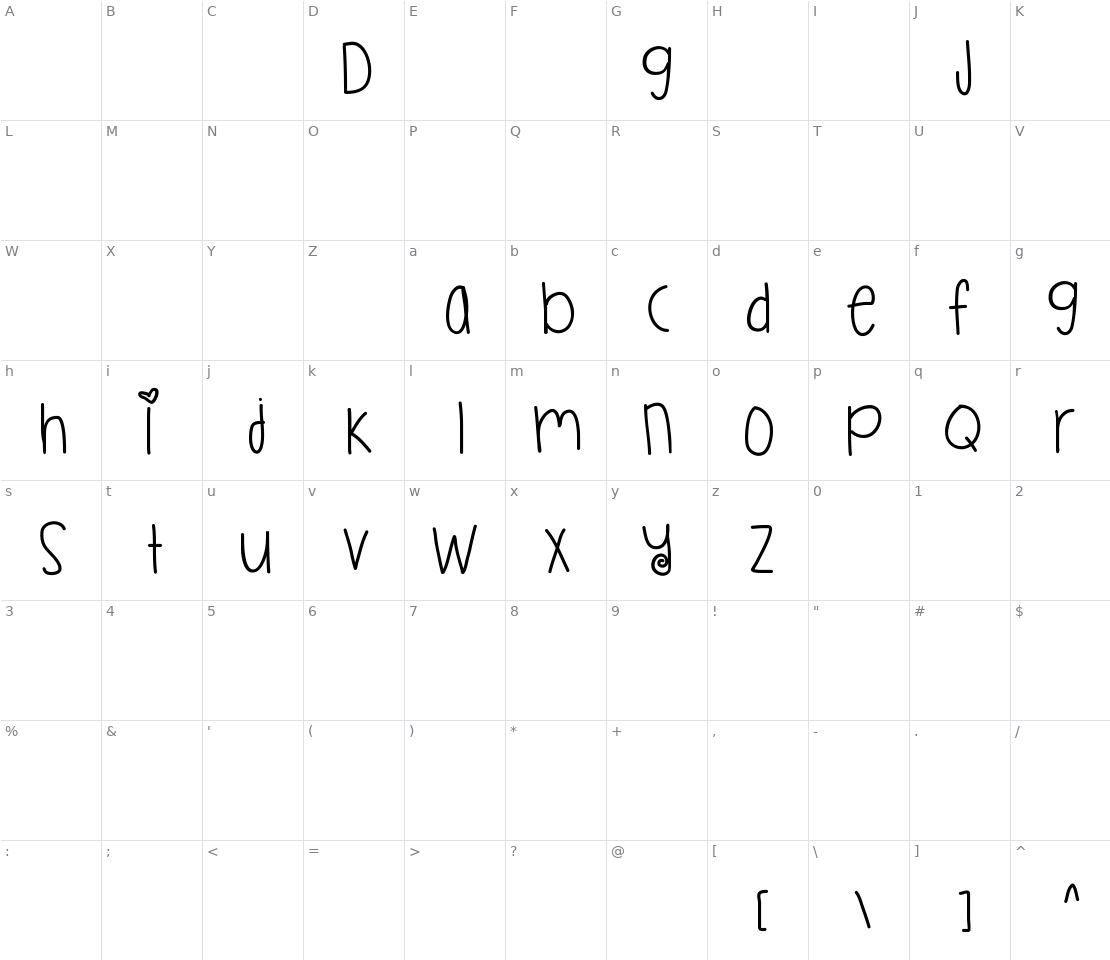
Multicolored Butterflies
by Des Gomez
Multicolored Butterflies is a light, whimsical handwritten face from Des Gomez with thin, delicate strokes that feel airy and feminine. The casual letterforms have a playful, slightly decorative quality that keeps things cute without losing legibility, landing naturally on greeting cards, invitations, and personal branding where a soft, approachable personality is the whole point.